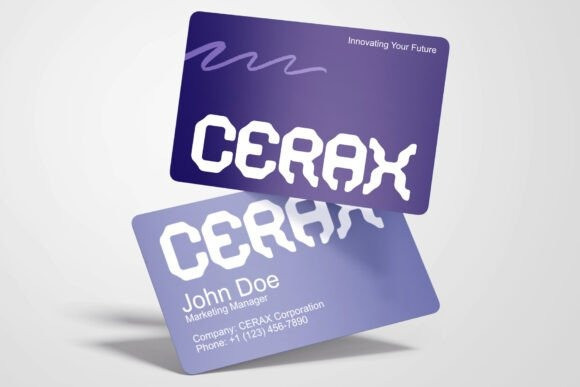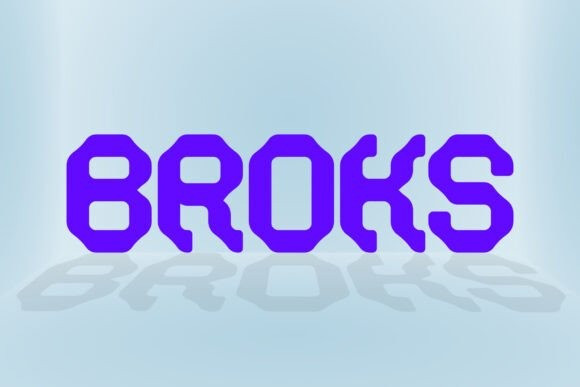
Broks Display Font
Broks Display Font a state-of-the-art typeface created to enhance your brand identity. Designed with exceptional precision, every aspect of Broks is mathematically optimized to captivate your audience. Its versatility makes it perfect for corporate use and a wide array of projects, including branding, logos, titles, headlines, posters, digital advertisements, and more.